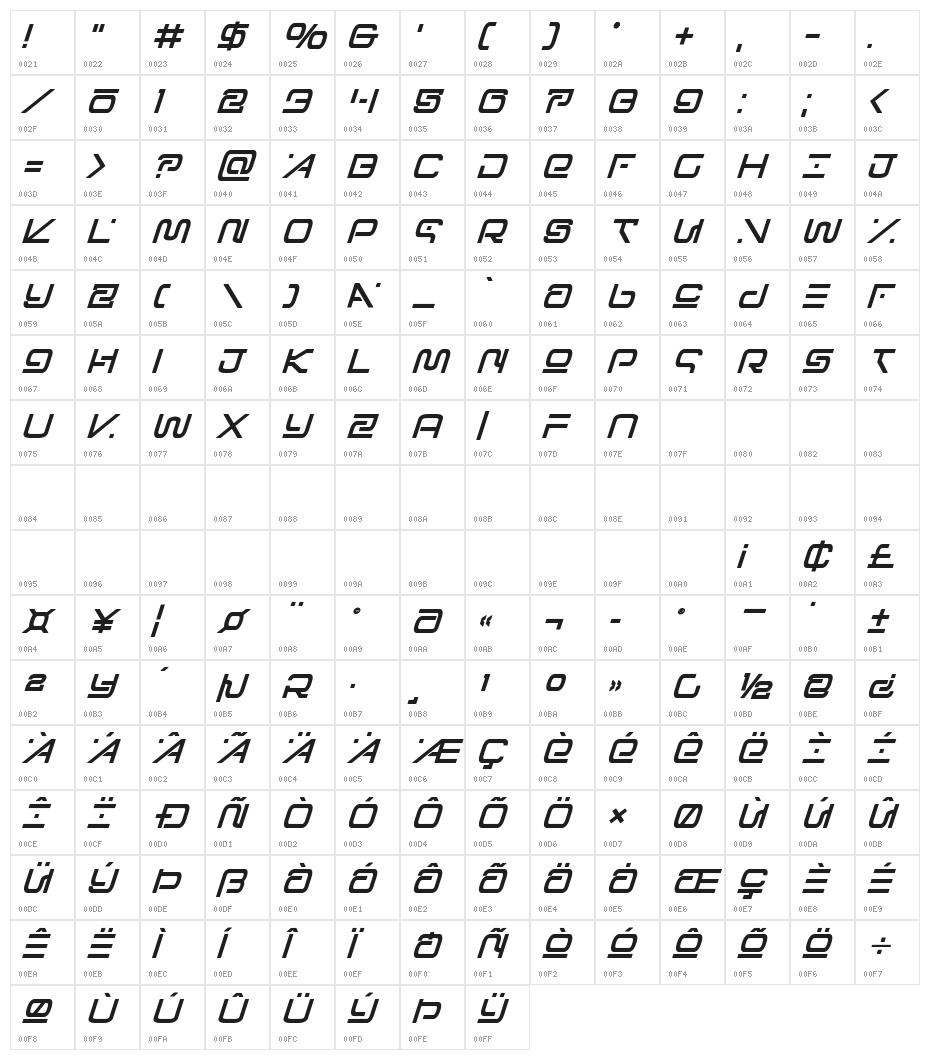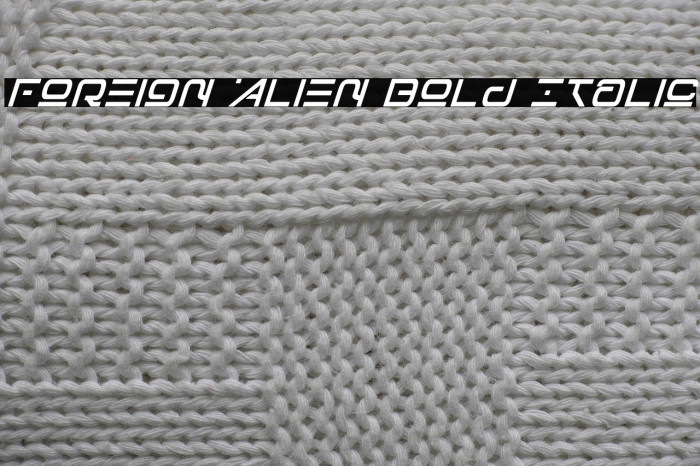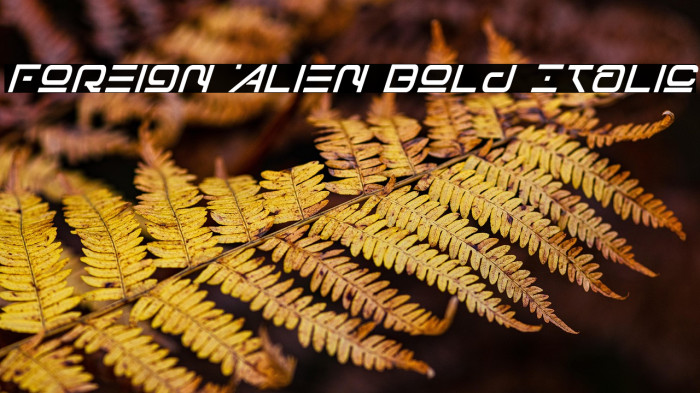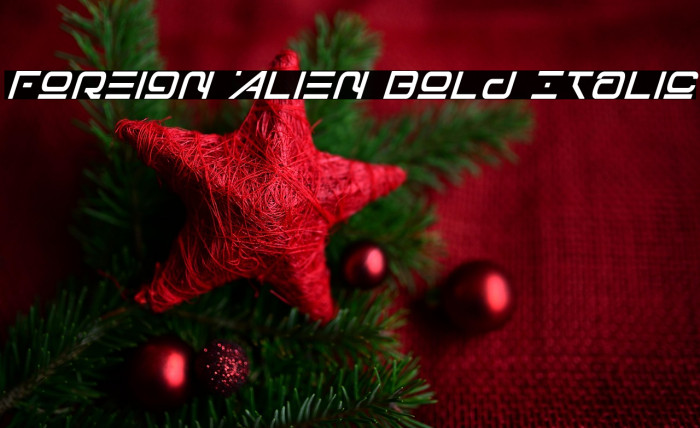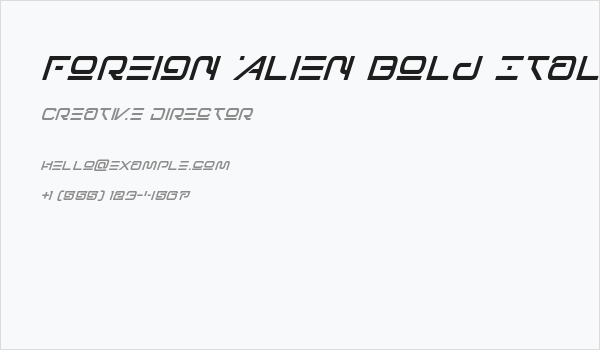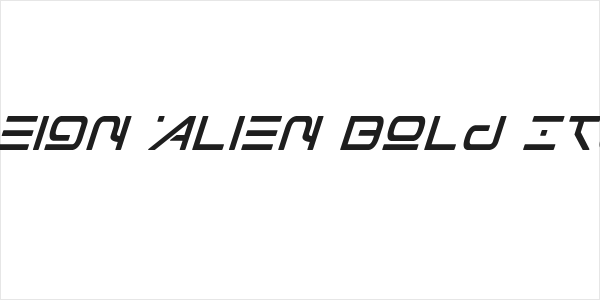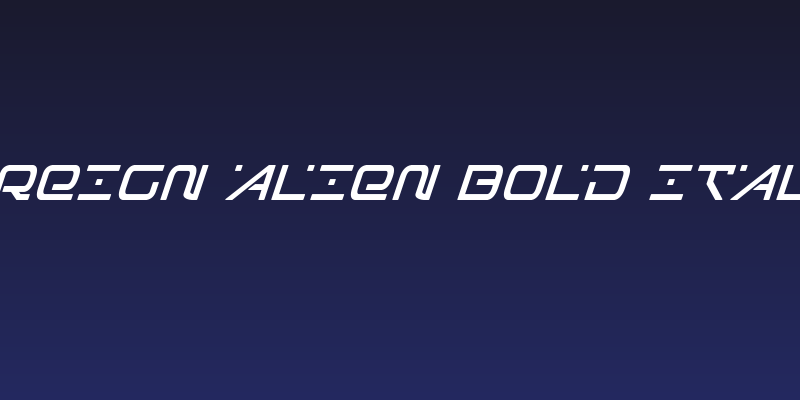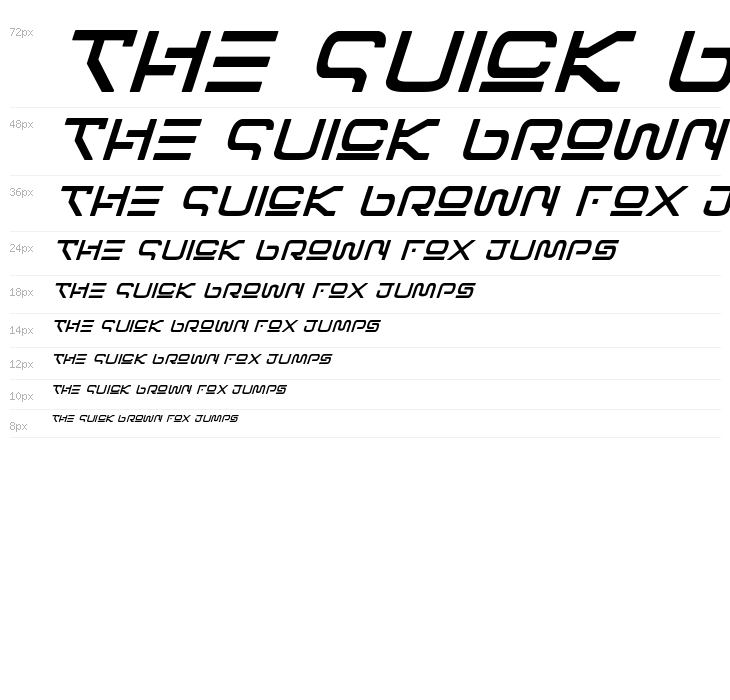
Foreign Alien Bold Italic Font
Foreign Alien Bold Italic Description
This font features a futuristic and angular design, characterized by its bold and italicized form. The letters are sharply defined with a distinct slant, giving it a dynamic and forward-moving appearance. The geometric shapes and clean lines create a sense of modernity and innovation. The uppercase and lowercase letters maintain a consistent style, with unique cuts and angles that add to its alien-like aesthetic. The numbers and special characters follow the same design principles, ensuring a cohesive look across all elements. This font is ideal for projects that require a bold and unconventional typeface, such as science fiction themes, technology branding, or creative digital media.
| Proposed Projects | Ideal for sci-fi themes, tech branding, and creative digital media. |